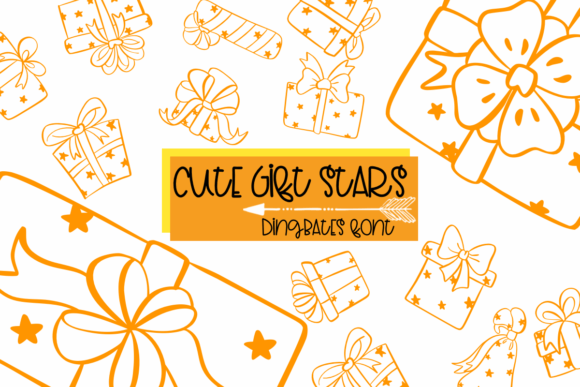
Sparkling Creativity: The Joy of Cute Gift Stars Font
Who hasn’t been there – sitting amidst a cluttered workspace, surrounded by scraps of paper, glue, and scattered ideas, yet somehow struggling to find the perfect way to express that one special moment? Perhaps it’s a wedding invitation, a DIY project, or a logo for a new business venture. Whatever it is, the key to unlocking your creativity often lies in the smallest of details – like the perfect font.
Enter Cute Gift Stars Font, a delightful dingbats font that brings a touch of whimsy and personality to your creative projects. With its sketch-style aesthetic, this font is perfect for designers looking to add a playful twist to their work. Whether you’re crafting a wedding invitation or designing a logo, Cute Gift Stars Font is sure to bring a smile to your face and a spark to your creativity.
By incorporating Cute Gift Stars Font into your design repertoire, you’ll not only elevate your projects but also tap into a world of endless possibilities. So why settle for ordinary when you can make your creations truly special with the help of this charming font?
Cute Gift Stars Font Key Features
- Font Style: A playful and whimsical font designed to resemble gift stars, perfect for festive and celebratory designs.
- Unique Characteristics: Features intricate star-shaped decorations, ornate details, and a touch of magic, making it ideal for holiday-themed designs, gift wrapping, and party invitations.
Cute Gift Stars Font Review
I recently had the chance to work with the Cute Gift Stars Font, and I must say it’s a mixed bag. Let’s start with what works well ✨:
- The font is adorable and perfect for designs related to gifts, celebrations, and holidays.
- It comes in a variety of styles, including bold and italic, which is great for adding some flair to your designs.
- The font is highly customizable, with options to adjust the size, color, and spacing to fit your needs.
However, there are some limitations ⚠️:
- The font may be too cutesy for some designs, which can detract from the overall message or tone.
- The font is not ideal for body text, as it can be difficult to read in smaller sizes.
- The font may not be compatible with all operating systems or devices, which can cause issues with font rendering.
Overall, I would say that the Cute Gift Stars Font is a great choice for designs that require a playful and festive touch. However, it may not be the best option for more serious or formal designs. With some careful consideration and customization, this font can be a valuable addition to your design toolkit.
Getting the Most Out of the Font
Here are some tips to get the most out of the Cute Gift Stars Font:
- Use it for gift-related designs, such as gift tags, cards, and wrapping paper.
- Combine it with other fonts for a playful and creative look.
- Experiment with different colors and sizes to add visual interest.
The Cute Gift Stars Font is perfect for:
- Gift-giving occasions, such